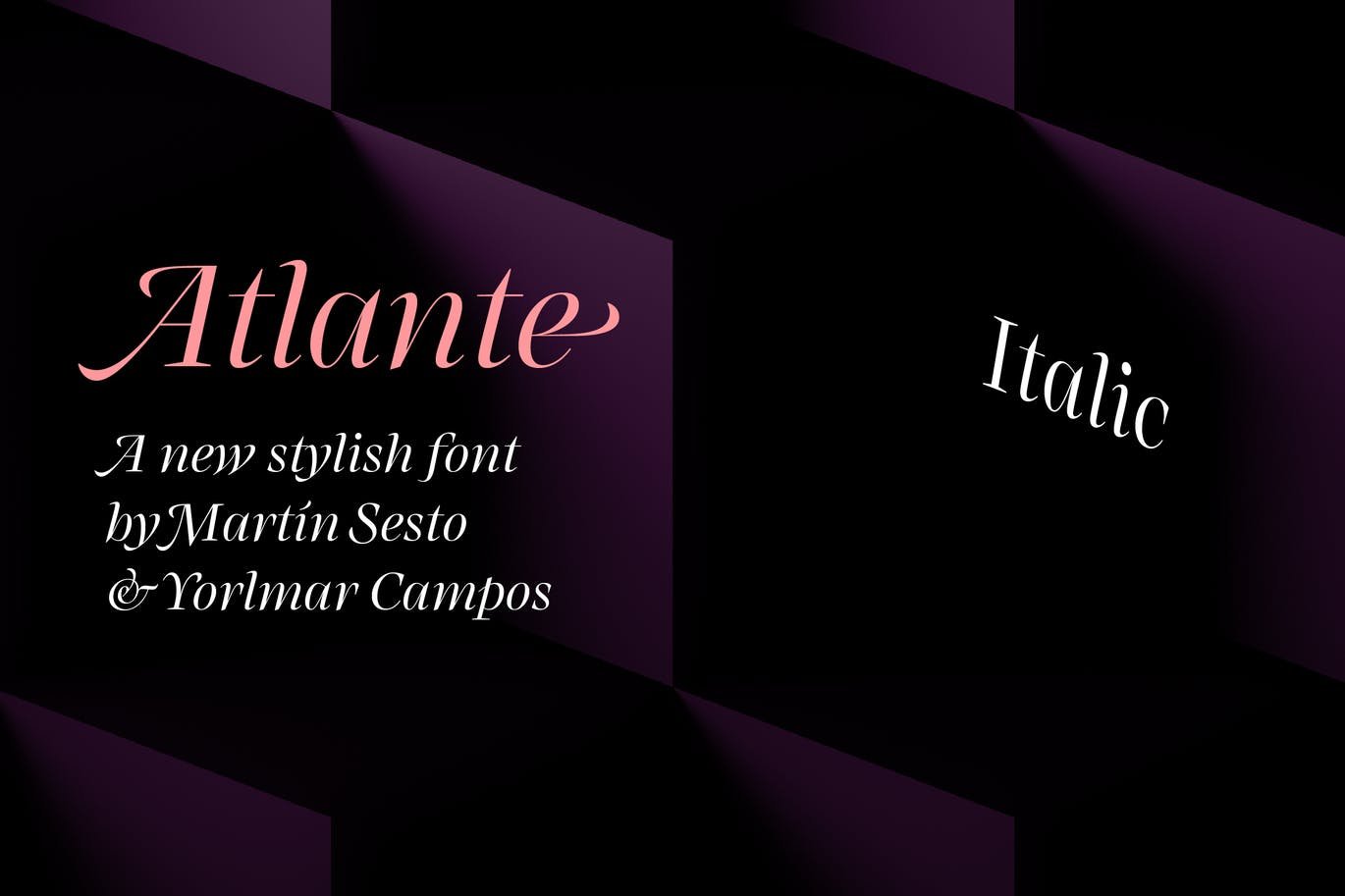
RNS Atlante Italic Font
RNS Atlante Italic Font is an elegant high-contrast typeface designed for editorial use and inspired by calligraphy used in sixteen and seventeen-century cartography. This italic stand out in the running text by way of its mannerisms and flat out the whimsy and seek to condense the spirit of beauty through the singularity.